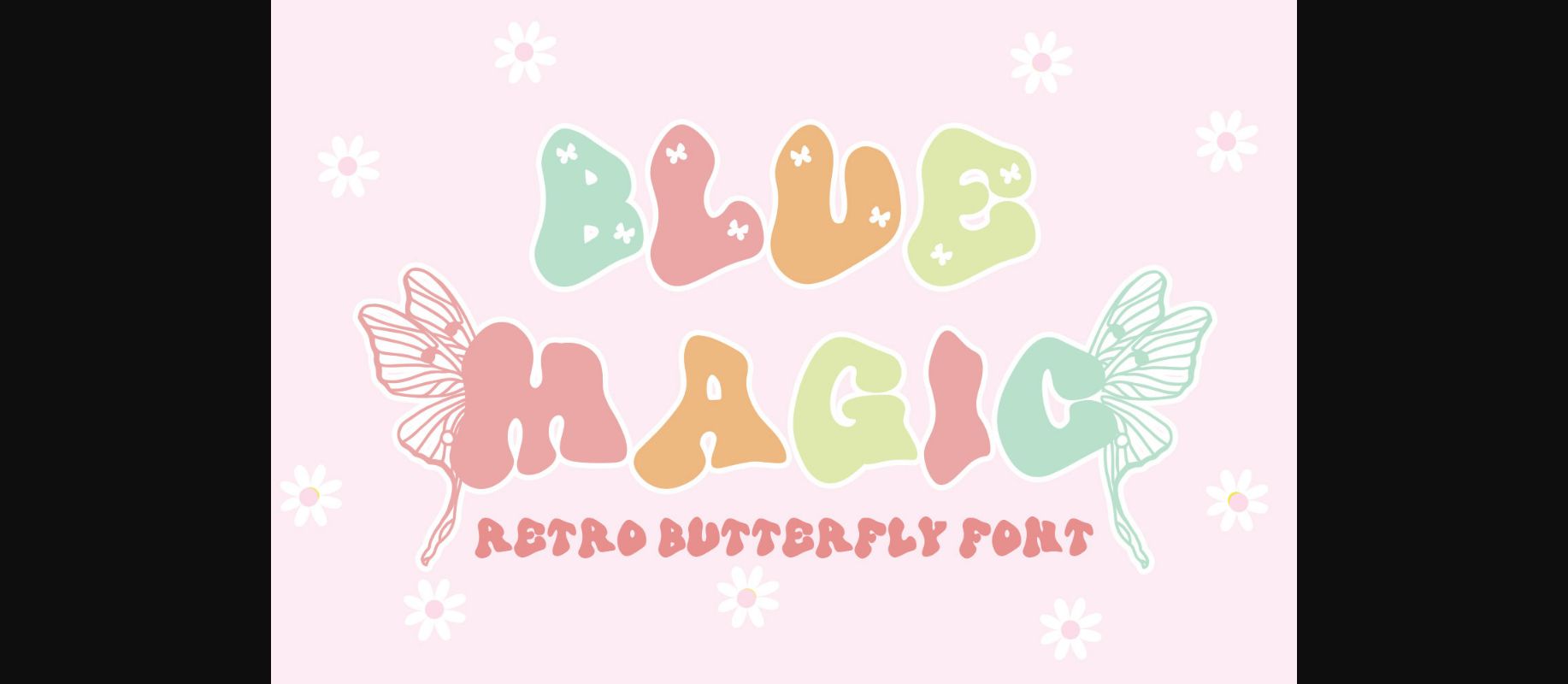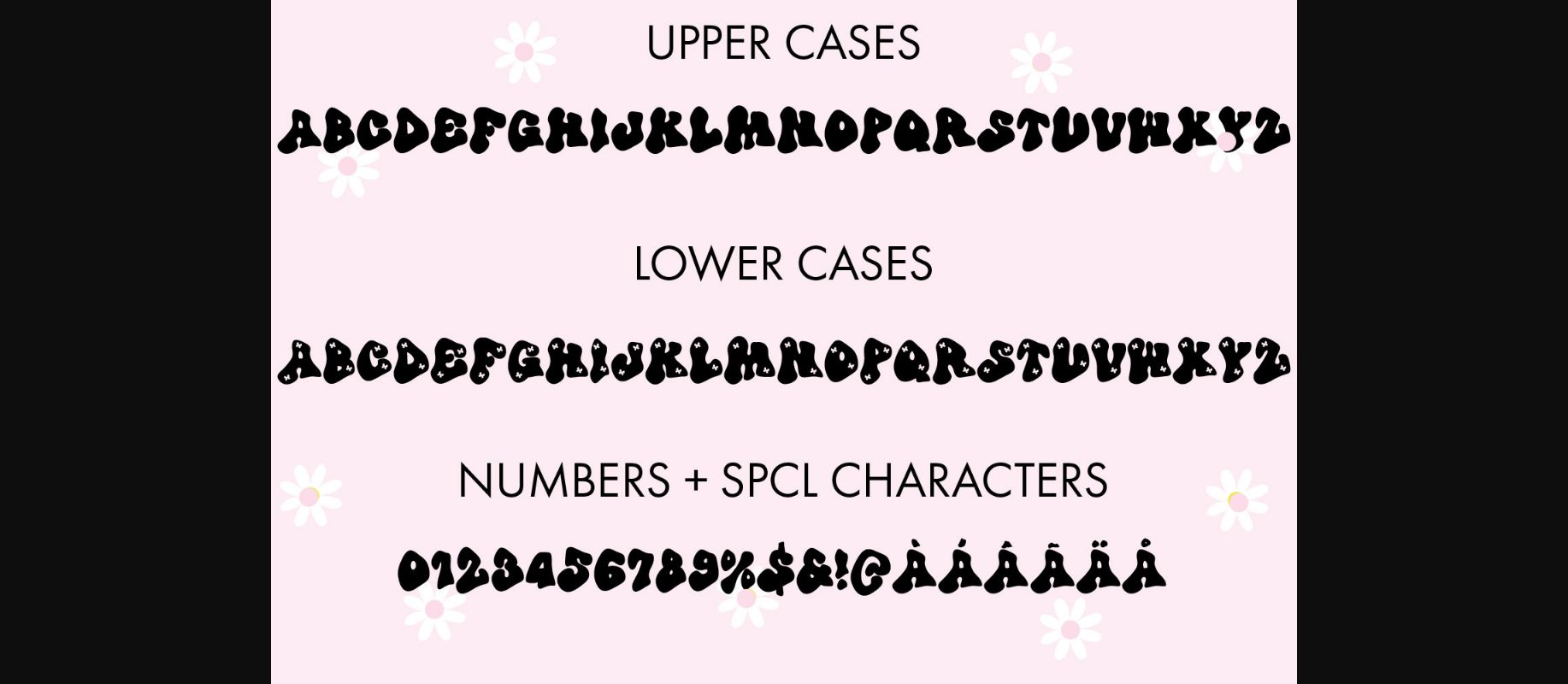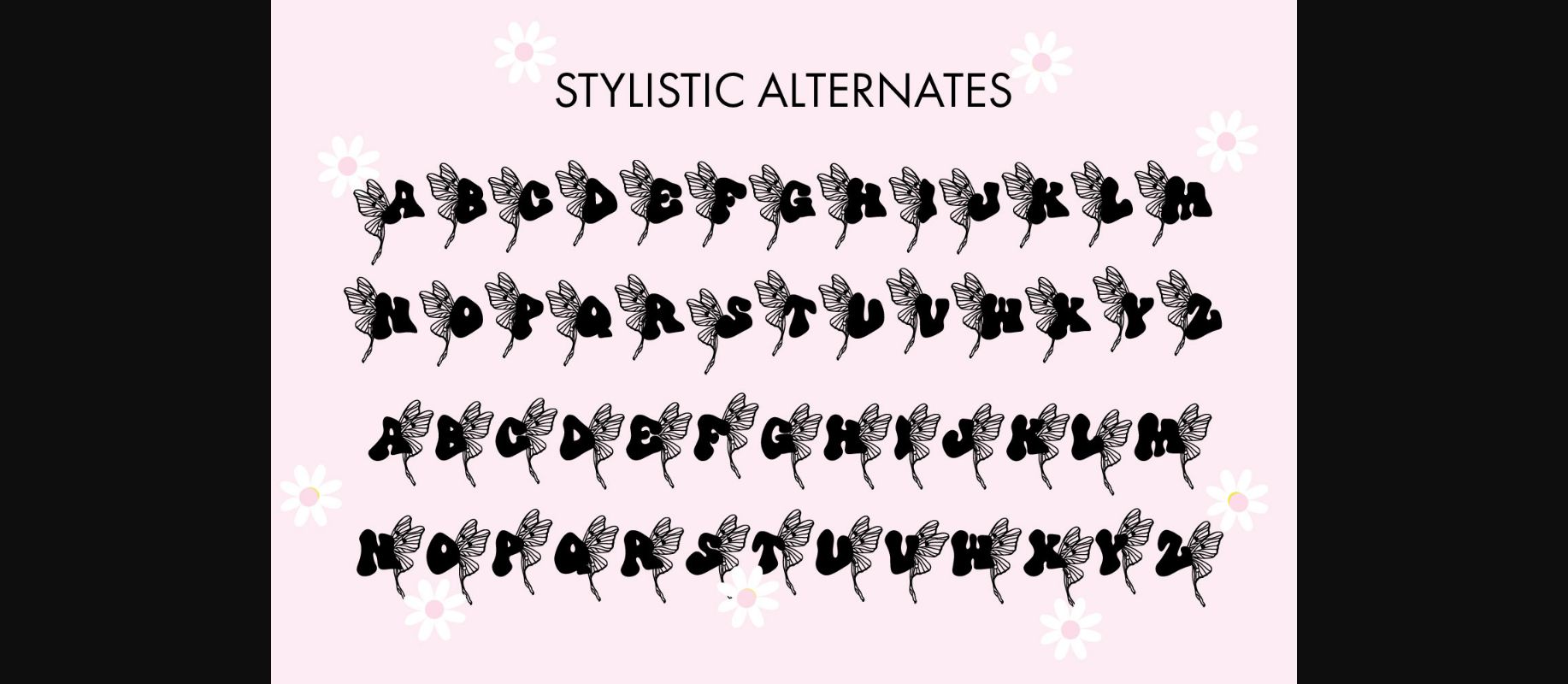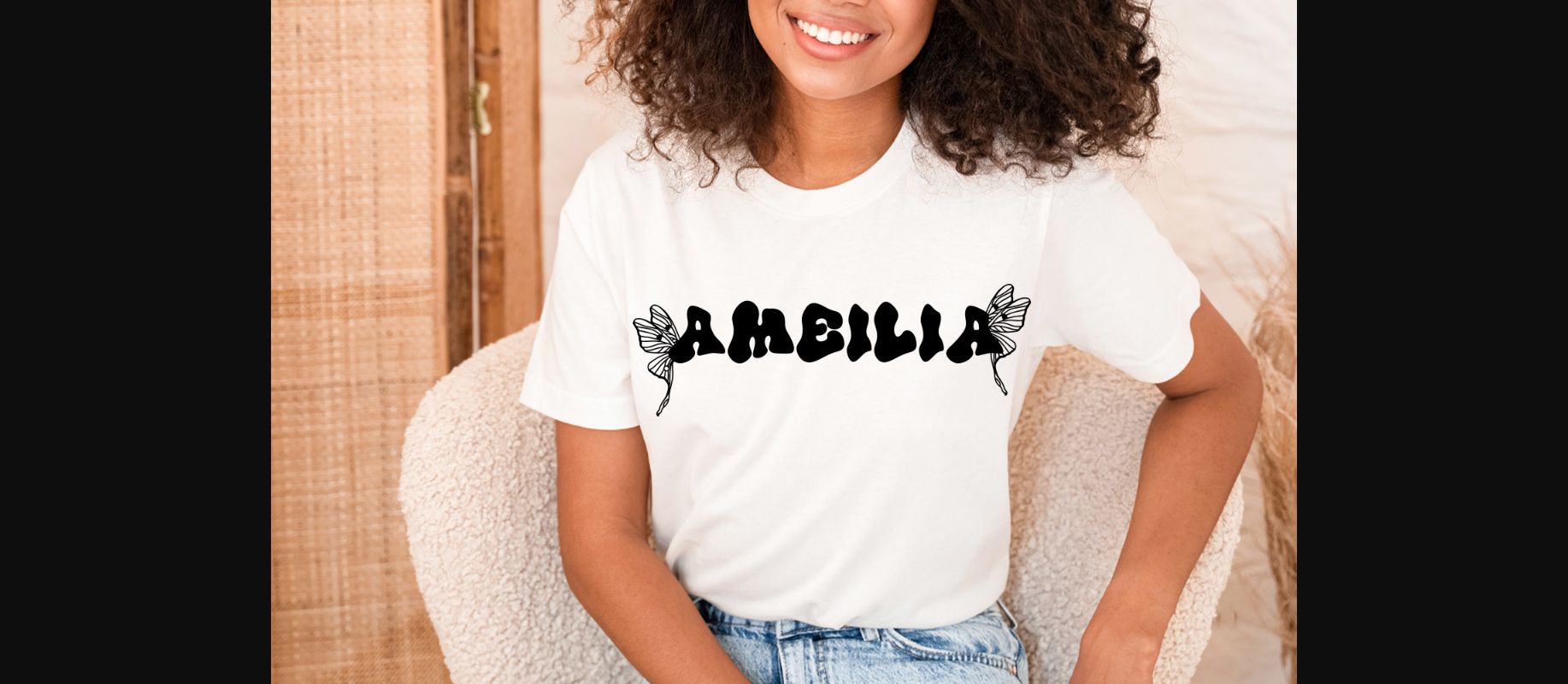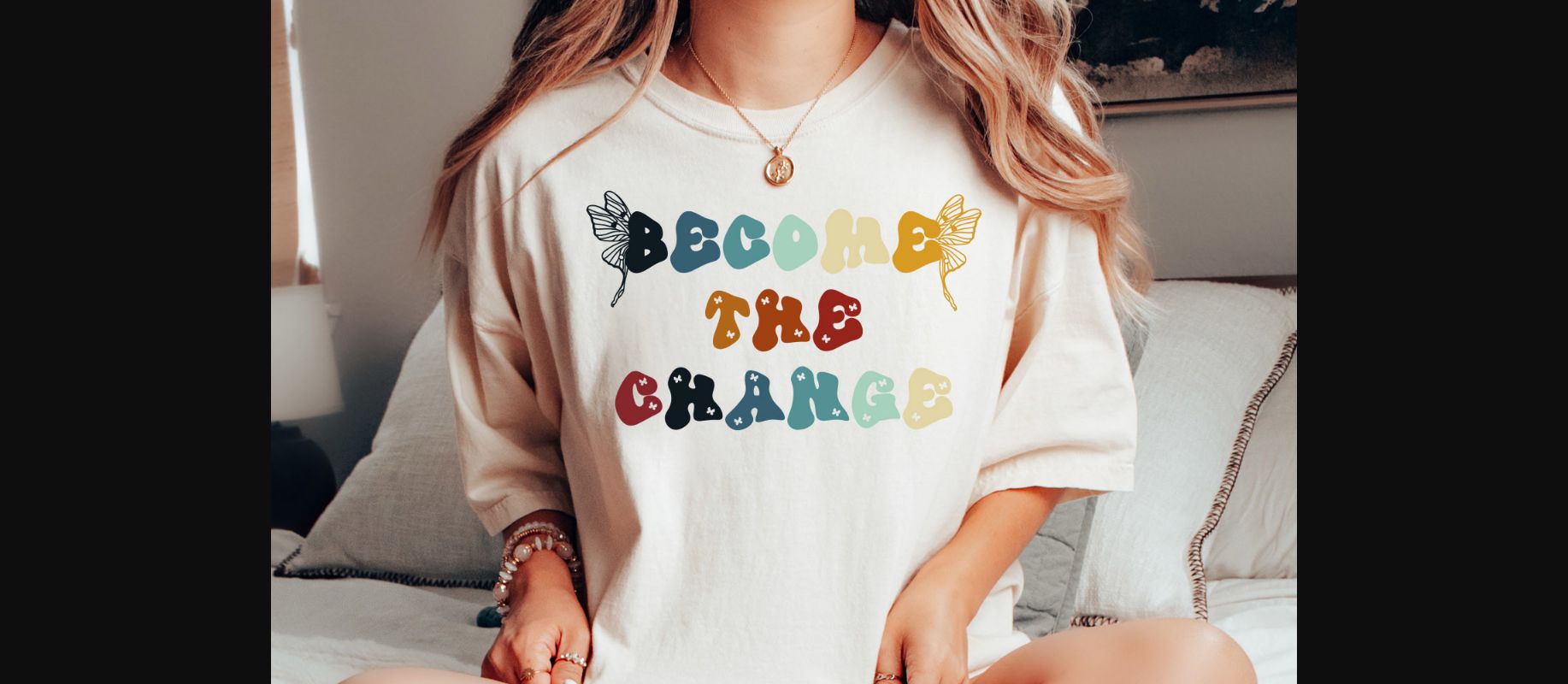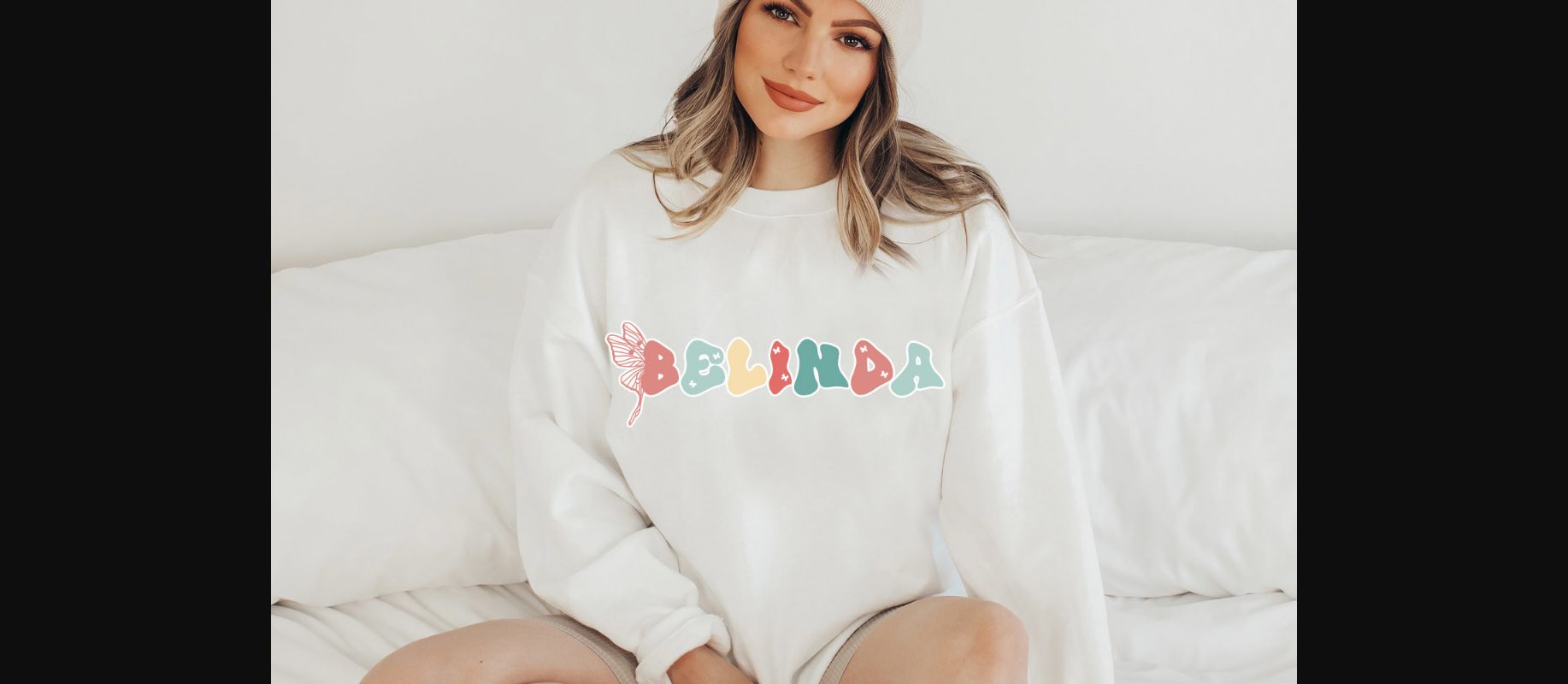
Blue Magic Font
Blue Magic- A Handwritten Retro Font With Butterfly Wings Alternates
Introducing “Blue Magic,” a whimsical handwritten font that takes you back to the retro era. This enchanting typeface offers a touch of nostalgia with its elegant curves and playful strokes. With stylistic alternates featuring delicate butterfly wings, each letter dances on the page, casting a spell of elegance and creativity. Let your words take flight with the charm of “Blue Magic.”
This font can be used for anything such as T-Shirt designs, phone cases, greeting cards, invitations, mugs and so much more! Be creative but most importantly have fun! This font is PUA encoded which means you can access all of the amazing glyphs and ligatures with ease!